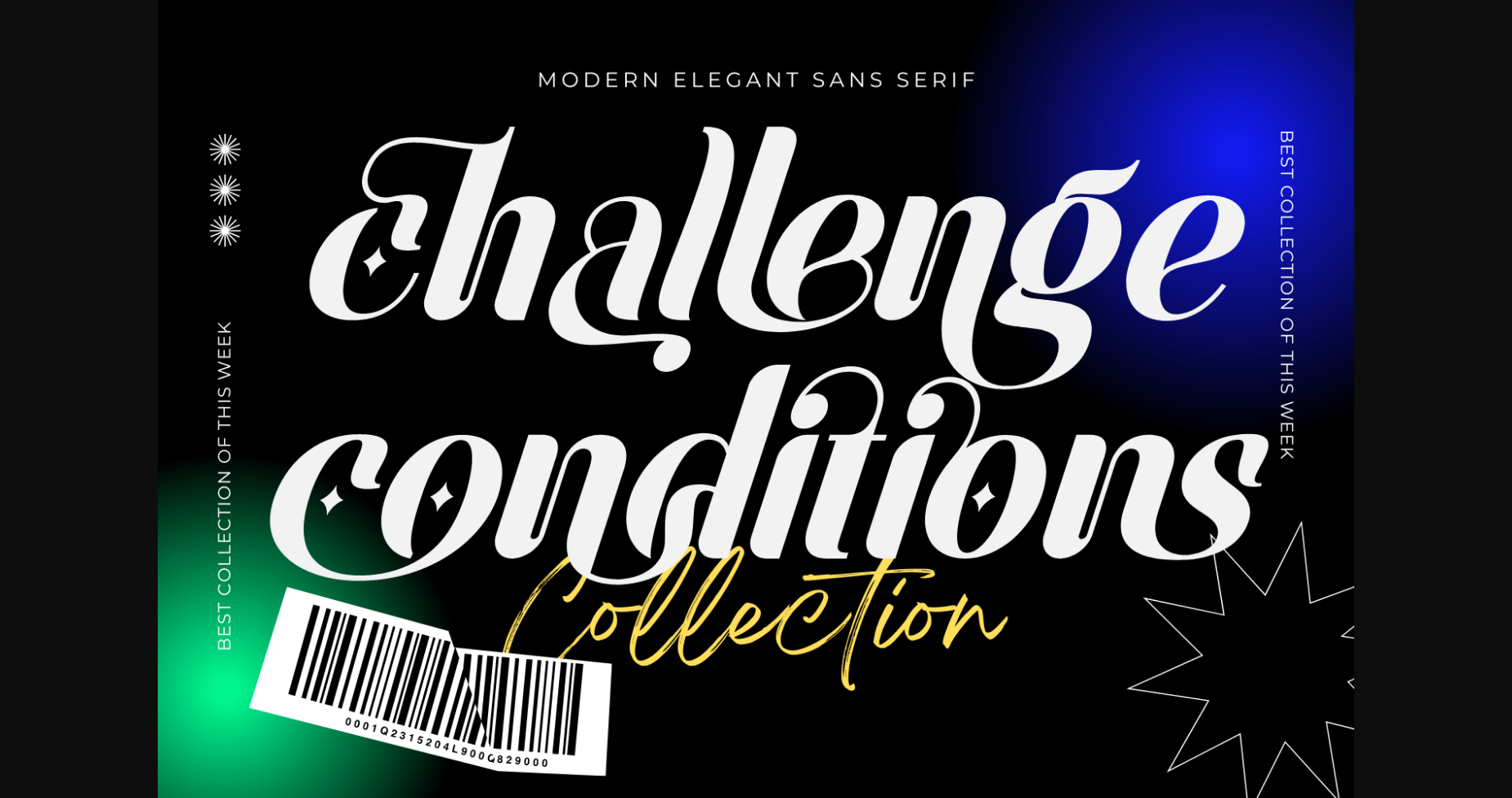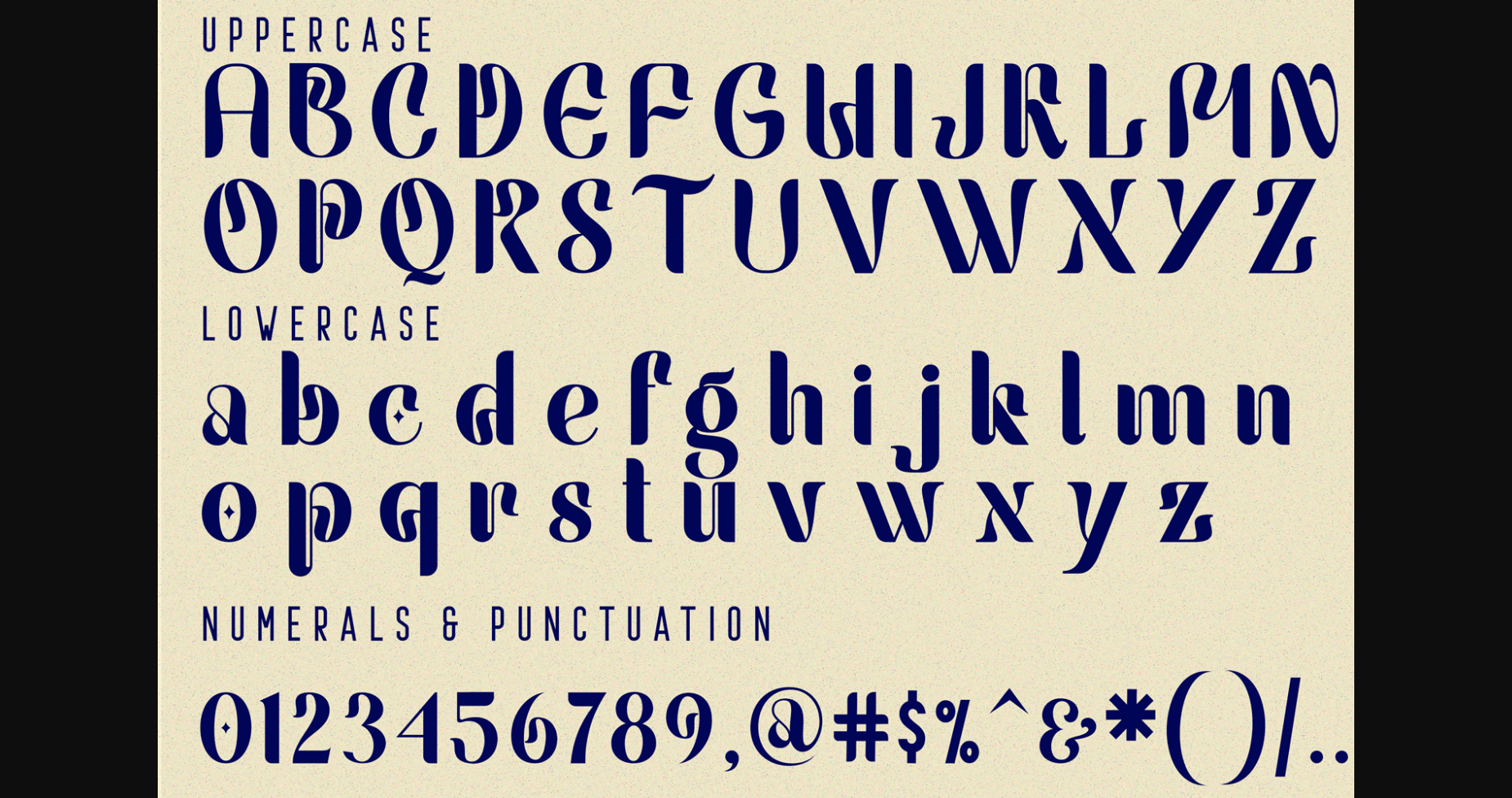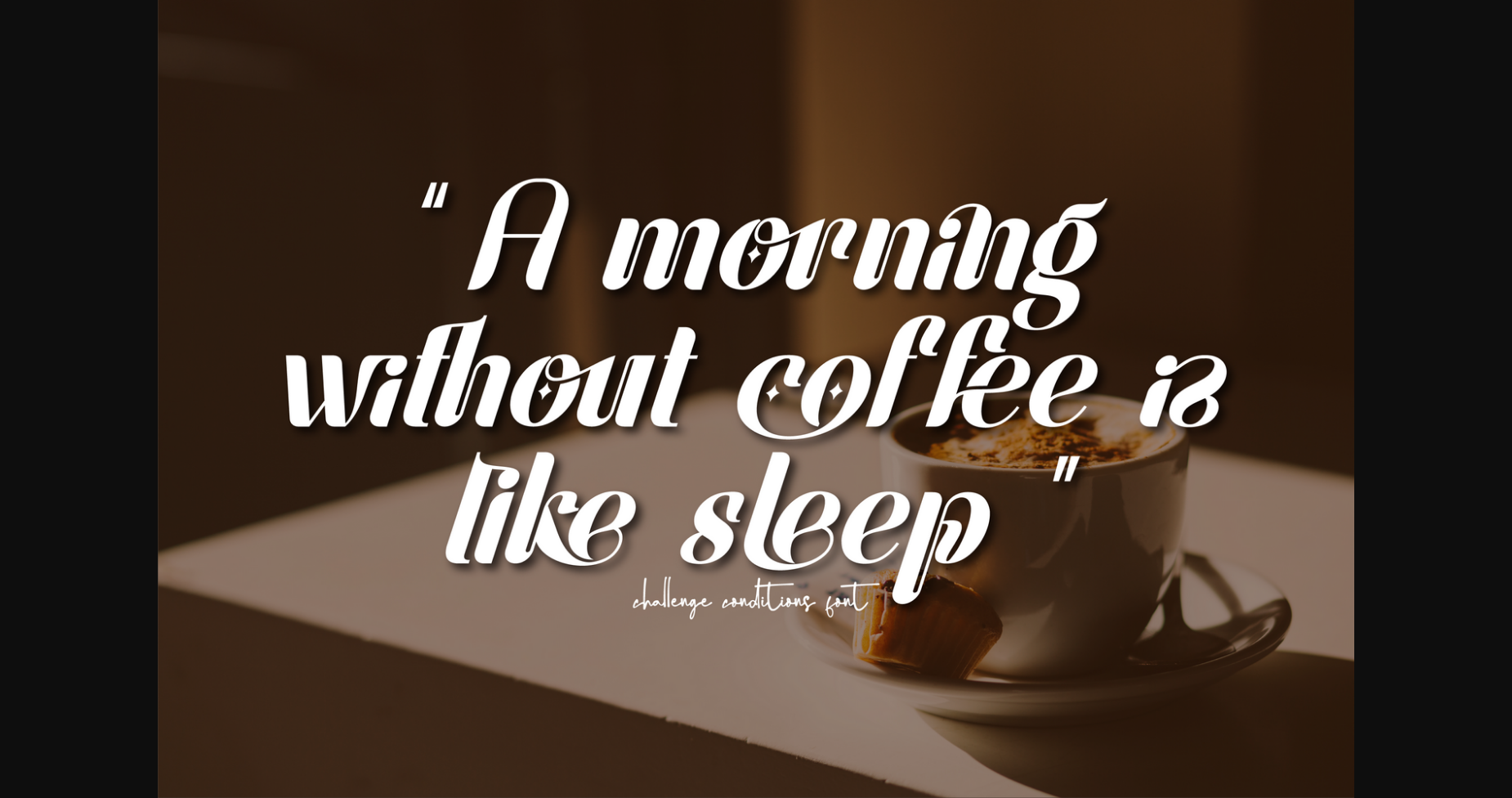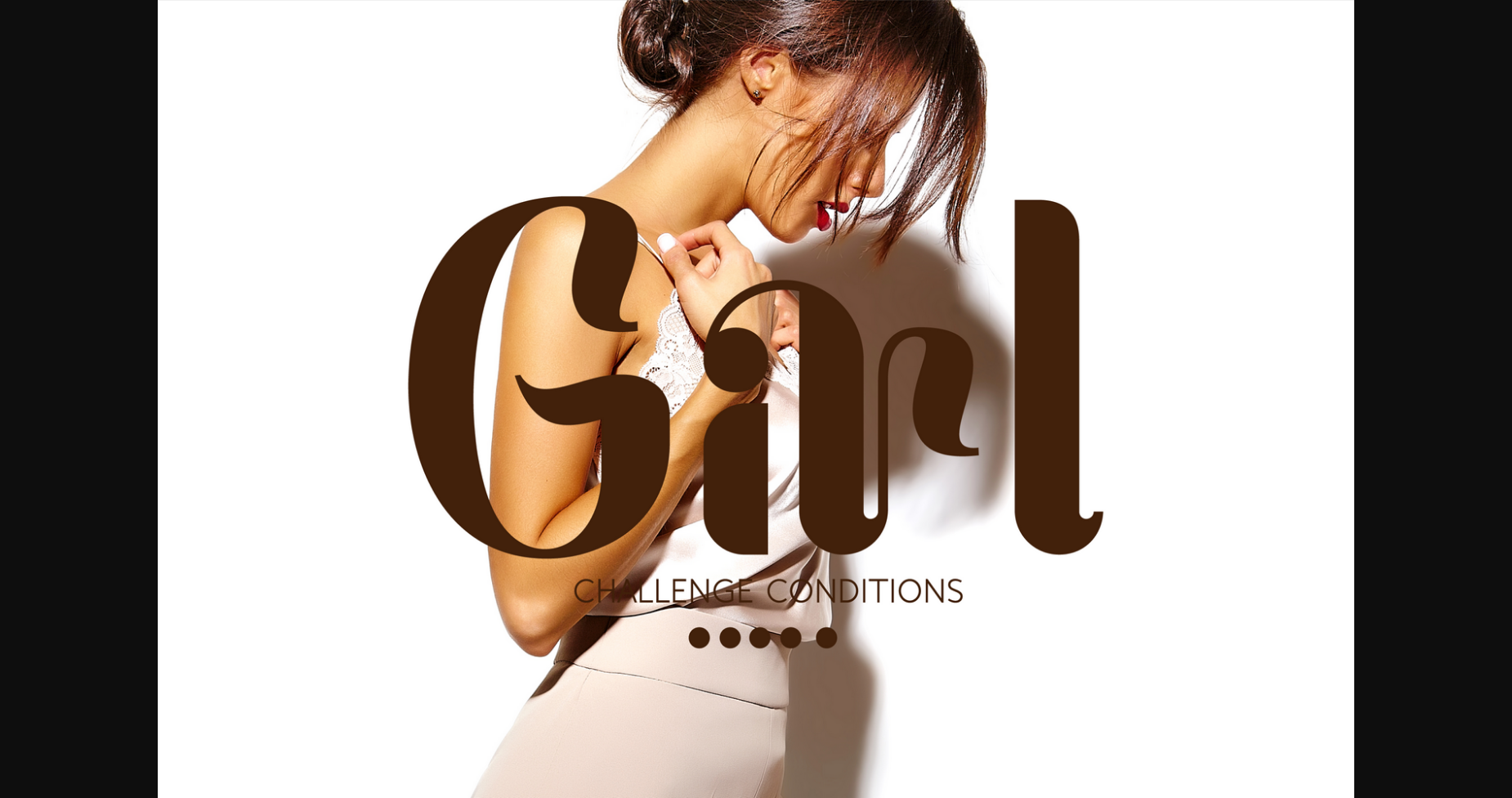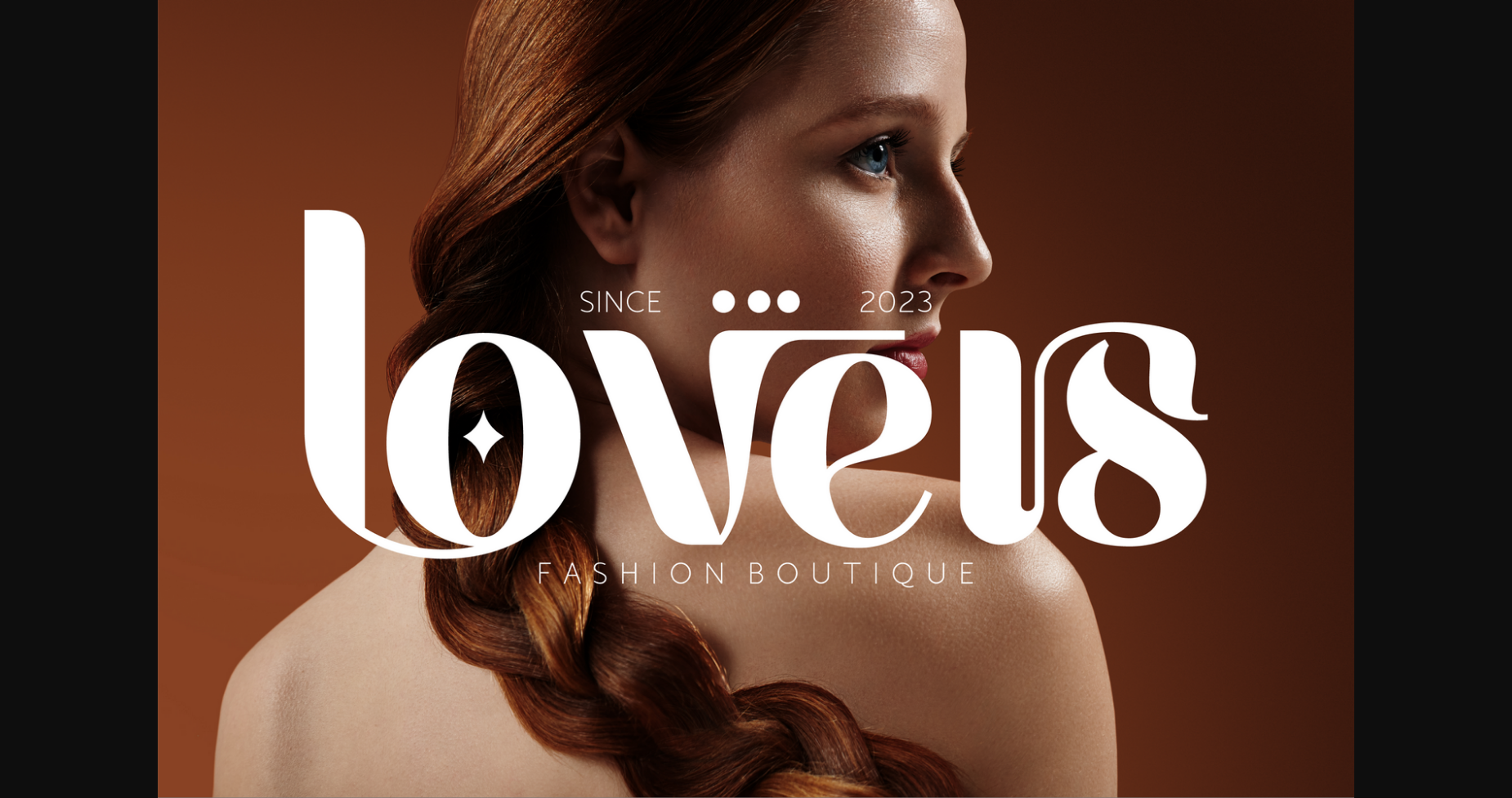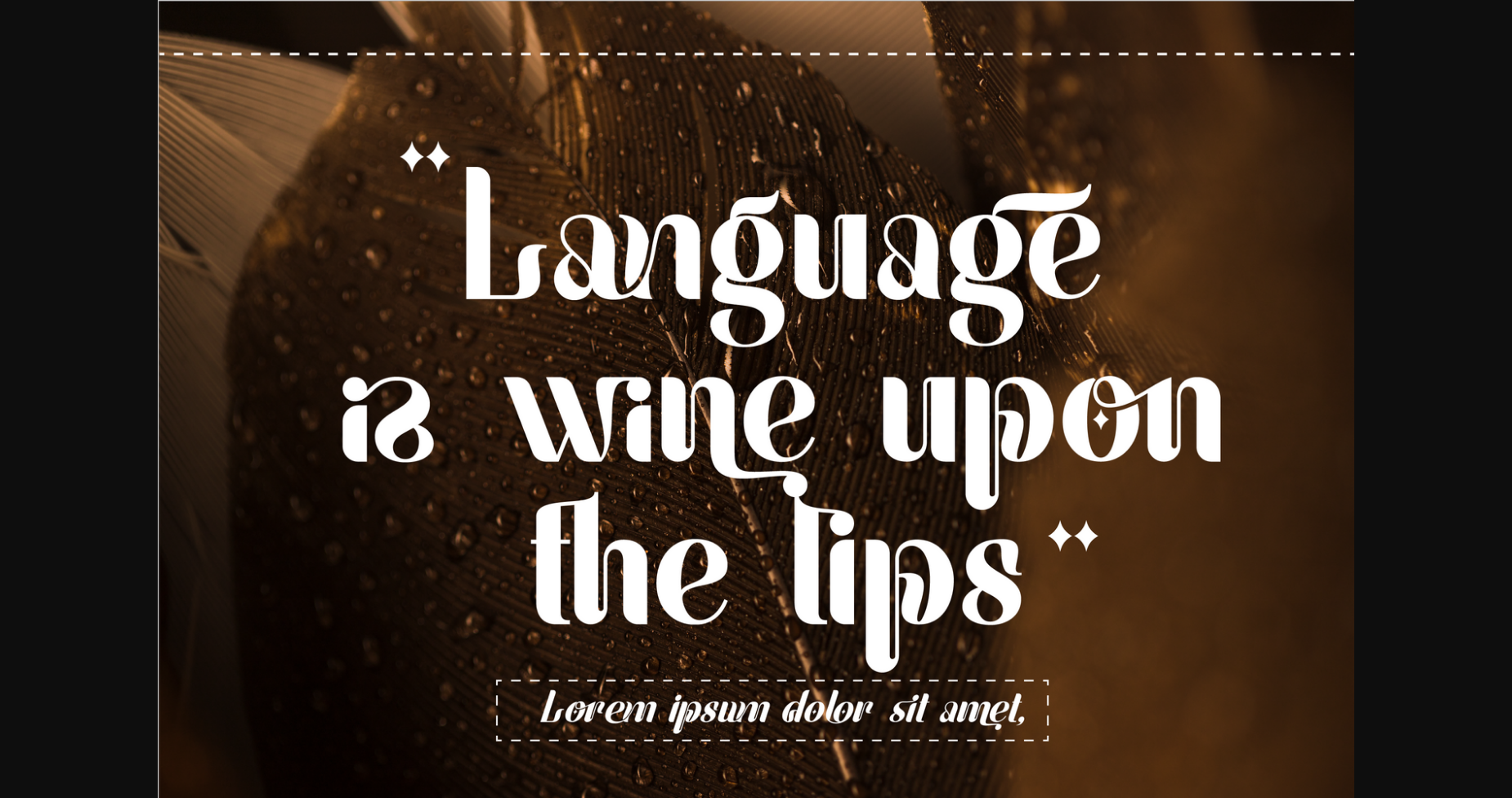
About Challenge Conditions Font
Challenge Conditions font is an exquisite sans-serif font that exudes sophistication and charm. Its slender and flowing strokes gracefully dance across the page, capturing the essence of elegance and style. Its elegant and modern appearance creates a striking impression, making it ideal for designs that need to stand out. With this font, you can create a unique and eye-catching look that’s perfect for any project.